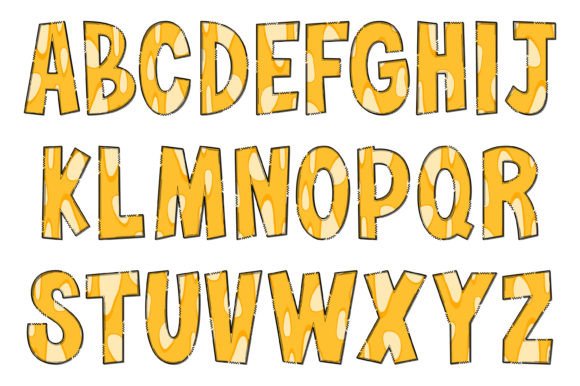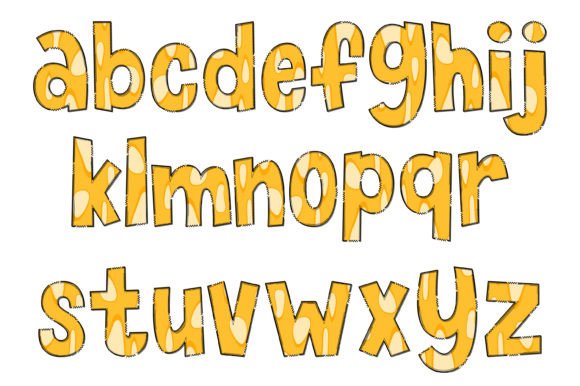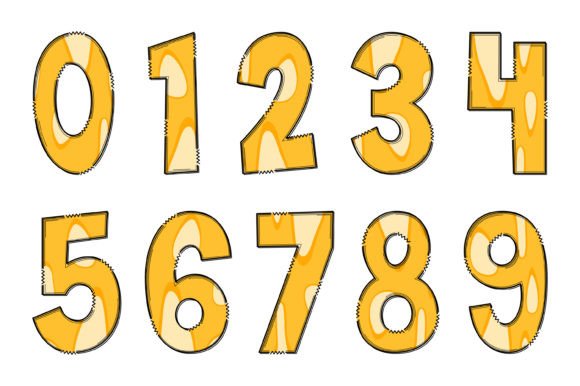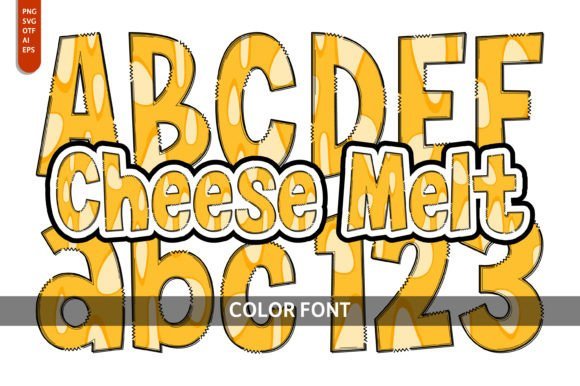
Get Ready to Melt Your Way to Creativity
As a designer, you’ve probably found yourself in the midst of a creative jam session, surrounded by scraps of paper, colorful pens, and a dash of imagination. You’re brainstorming ideas for a new children’s book, and you want the typography to transport your young readers to a world of wonder and magic. That’s where the Cheese Melt Font comes in – a playful, artistic font that’s perfect for designs that aim to delight and engage.
The Cheese Melt Font is a color font (Opentype-SVG) that’s designed to add a touch of whimsy to your designs. With its vibrant colors and easy-to-read style, it’s a valuable asset for designers who want to create eye-catching graphics, posters, and invitations that truly pop. Whether you’re working on a children’s book, a greeting card, or a poster, the Cheese Melt Font is sure to bring a smile to your face and a touch of creativity to your designs.
Cheese Melt Font Key Features
- Unique Characteristics: Features a unique blend of modern and vintage elements, with intricate details and subtle textures that evoke a sense of warmth and nostalgia.
Designer Review: Cheese Melt Font
Overall, I’m quite impressed with the Cheese Melt Font. It’s a fun, playful typeface that’s perfect for adding some whimsy to your design projects. ✨ The font’s organic, hand-drawn feel gives it a unique character that’s sure to stand out.
- The font’s versatility – it’s great for both headings and body text, and can be used in a variety of contexts.
- The wide range of ligatures and alternate characters available, which add to the font’s personality.
- The font’s ability to scale well, making it a great choice for both small and large projects.
- The font may be too playful for more serious or professional projects, where a more traditional font might be a better choice ⚠️.
- The font’s organic feel can sometimes make it difficult to read, particularly in smaller sizes.
Overall, I’d give the Cheese Melt Font 4 out of 5 stars. It’s a fun and unique typeface that’s perfect for adding some personality to your designs, but may not be the best choice for every project. With a bit of restraint and careful use, however, it can be a real showstopper. ✨
The Cheese Melt Font is ideal for creating playful, eye-catching designs. Use it for:
- Food-related graphics, such as menus or recipe cards.
- Children’s book illustrations or educational materials.
- Advertising and marketing materials that require a fun, whimsical touch.
For best results, pair the Cheese Melt Font with bold, vibrant colors and playful graphics to create a visually appealing design.